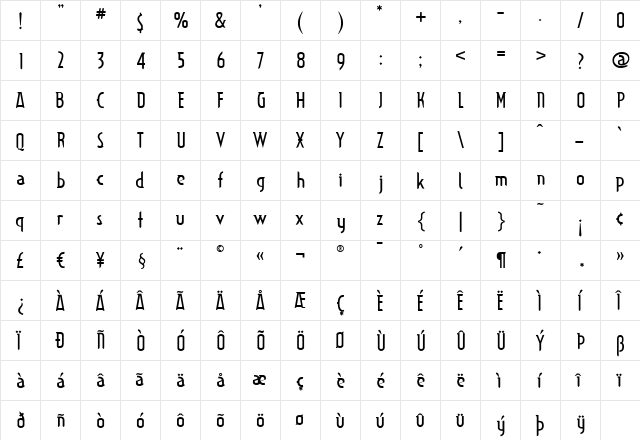
Typographiction10R Medium
Design Context for Typographiction10R Typeface
Typographiction10R takes a measured approach to typography — its balanced proportions and neutral character make it a reliable workhorse for both digital and print work.